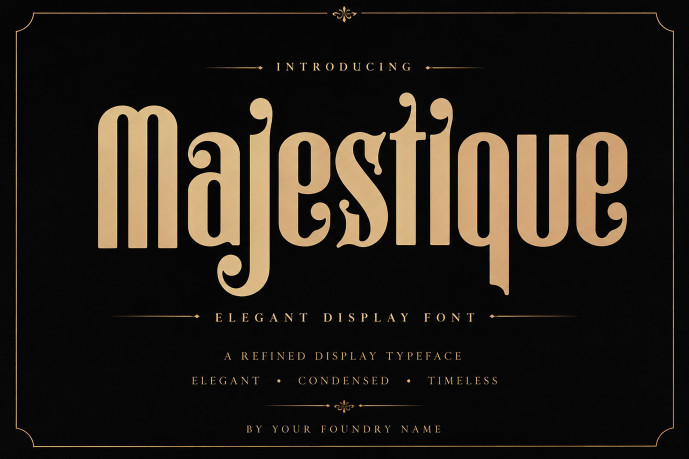
Majestique Font
Exude timeless luxury and vintage sophistication with Majestique, a refined condensed display font! Characterized by tall vertical proportions, elegant ball terminals, and graceful serif curves, this typeface brings high-end editorial glamour to any design.
Ideal for luxury brand logos, upscale beauty packaging, fashion magazine headers, wedding stationery, wine labels, and boutique signage, Majestique elevates your typography with understated opulence.